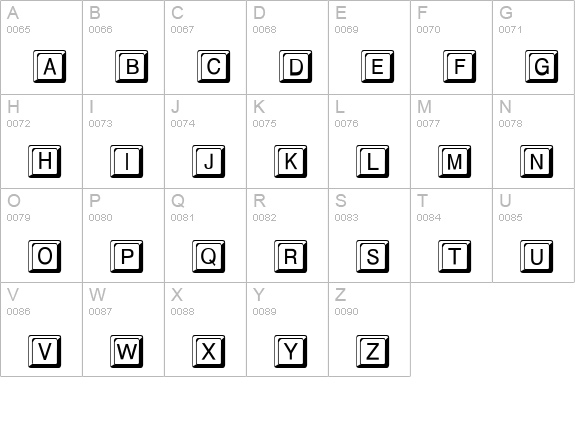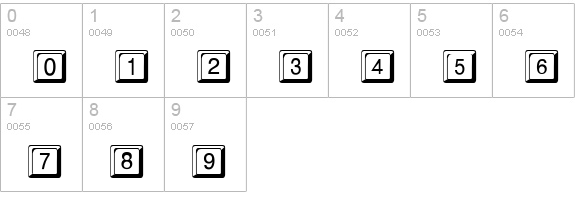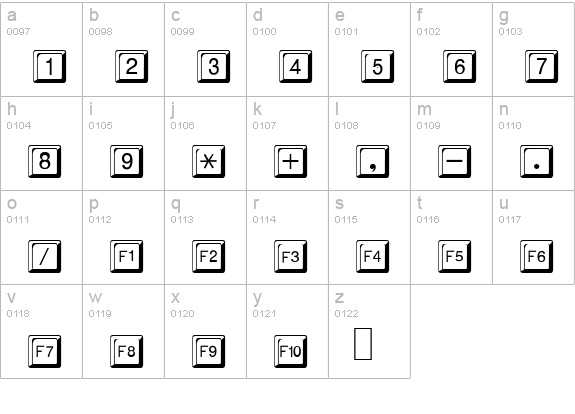
SonicKeys Font Details
Introducing SonicKeys, a captivating and innovative font that will elevate your design projects to new heights. This remarkable typeface combines sleek and modern elements with a touch of playfulness, resulting in a truly unique and eye-catching aesthetic. With its dynamic and energetic letterforms, SonicKeys effortlessly conveys a sense of movement and rhythm. Whether you're designing a poster, logo, or website, this font will inject a burst of energy into your compositions, instantly grabbing the viewer's attention. One of the most exciting aspects of SonicKeys is that it is completely free to use. That's right, this extraordinary font can be freely downloaded at FontsMarket.com, allowing you to enhance your creative endeavors without any financial constraints. Embrace the freedom to explore and experiment with SonicKeys, as it opens up a world of endless possibilities for your design projects. SonicKeys is designed with versatility in mind. Its extensive character set includes a wide range of ligatures, alternates, and stylistic variations, giving you the flexibility to customize and personalize your typography. Whether you're going for a bold and edgy look or a refined and elegant feel, SonicKeys has got you covered. Not only does SonicKeys excel in visual impact, but it also boasts exceptional legibility. Each letter is meticulously crafted to ensure clarity and readability, even at smaller sizes. This makes it an ideal choice for various applications, from headlines and titles to body text and captions. So why wait? Unleash your creativity and download SonicKeys for free at FontsMarket.com today. Harness the power of this extraordinary font and watch as your designs come alive with energy and style. With SonicKeys, the possibilities are limitless, and your imagination is set free.